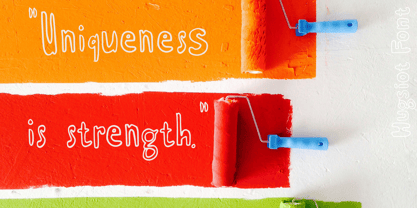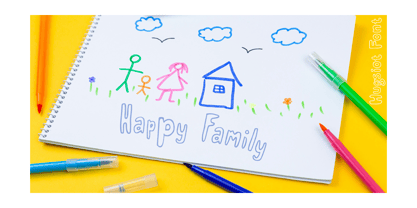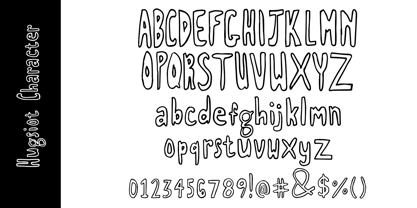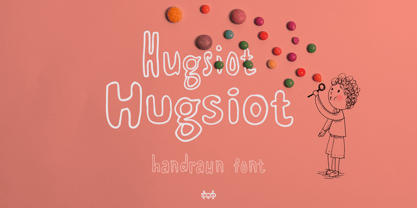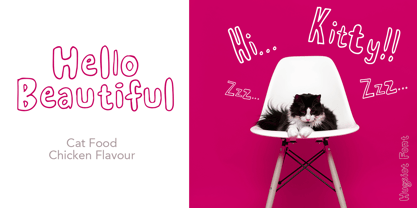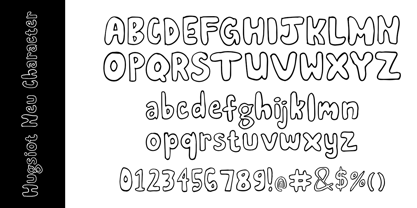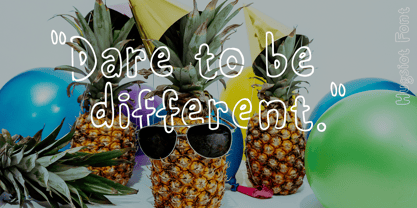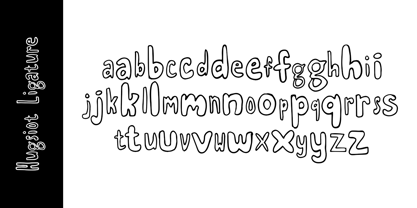
Hugsiot Neu
by madeDeduk
The Hugsiot Neu Font Family was designed by madededuk and published by madeDeduk. Hugsiot Neu contains 2 styles and family package options. More about this family
Hugsiot and Hugsiot Neu is an outline hand drawn font come with two style includes ligatures to make everything look natural. This font perfect for poster design, book covers, merchandise, fashion campaigns, newsletters, branding, advertising, magazines, greeting cards, album covers, and quote designs and more.